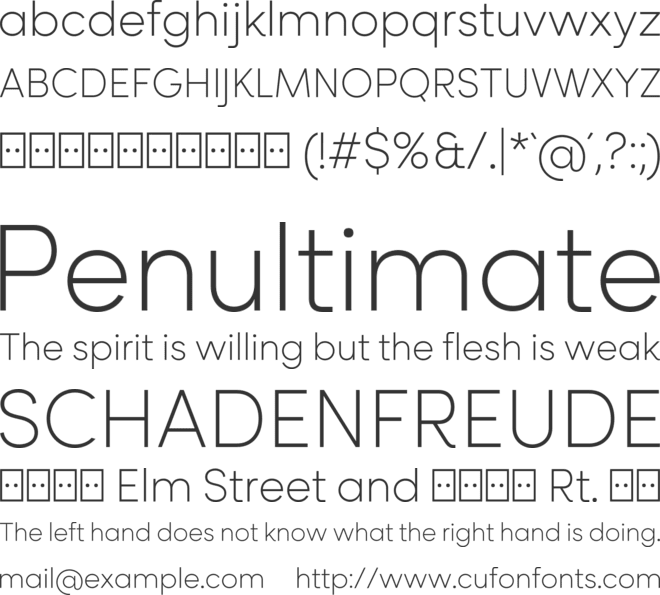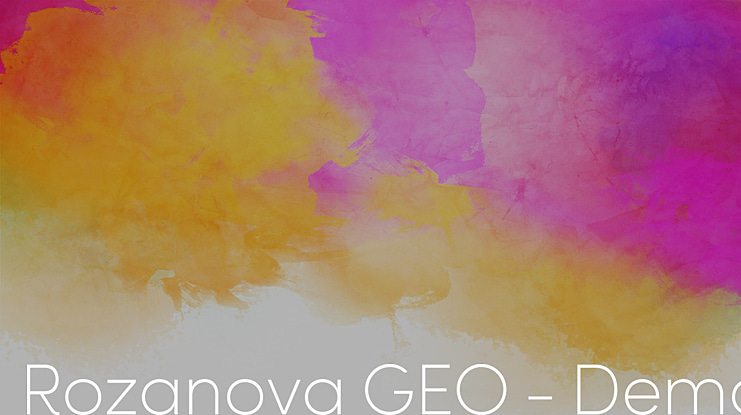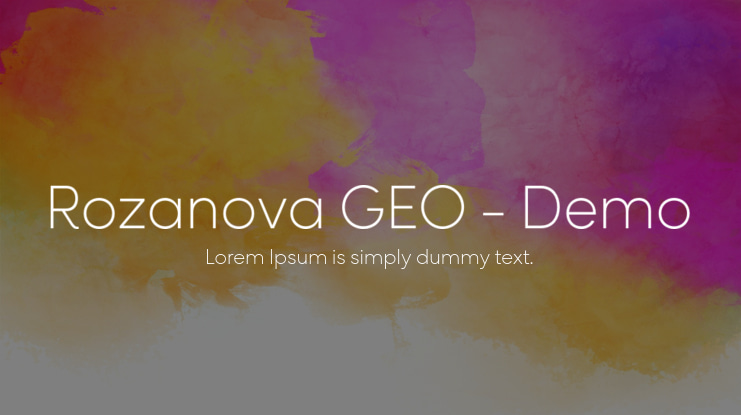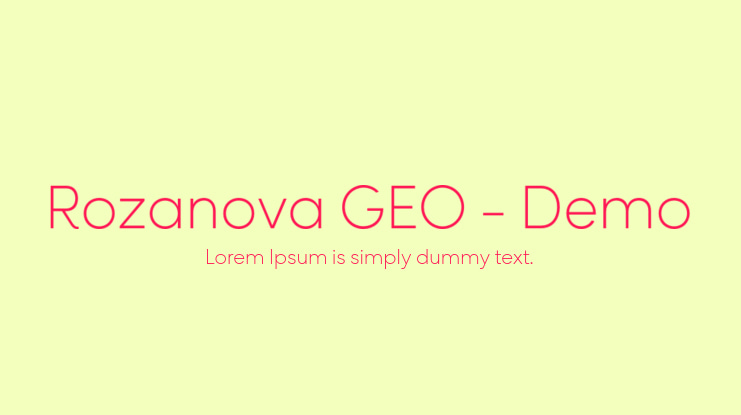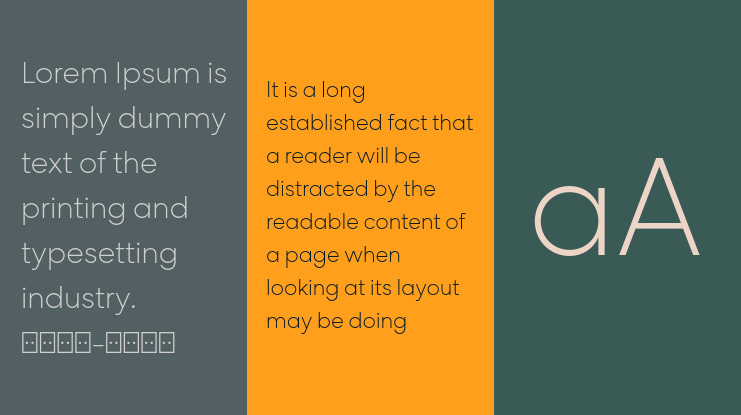
Rozanova GEO - Demo Font Family
Rozanova glyph proportions and shapes make it functional, legible and with personality. The personal character of its shapes makes Rozanova a versatile, dynamic, recognizable, legible and functional typeface, perfect for editorial projects, corporate use, and strong brand identity design such as posters, logotypes and packaging.